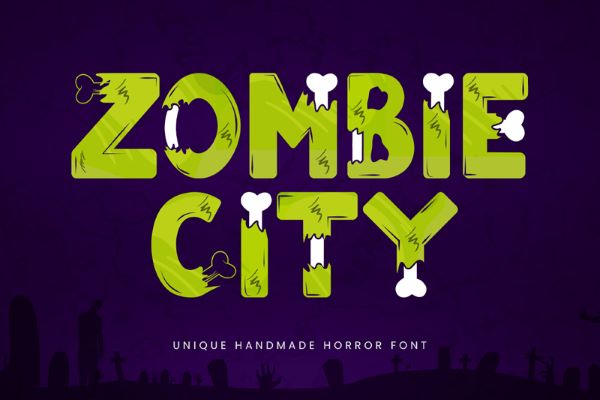
Zombie City Font
Zombie City by Kong Font is a free Halloween display font or let’s say zombie font with a battered, post-apocalyptic urban character — its crumbling, decay-textured letterforms evoking streets overtaken by the undead in a way that makes it a perfect freaky font for zombie-themed game titles, horror movie graphics, With 349 glyphs and 64,000+ downloads, it has proven both practical and popular. Free for personal use; commercial via fontkong.com.